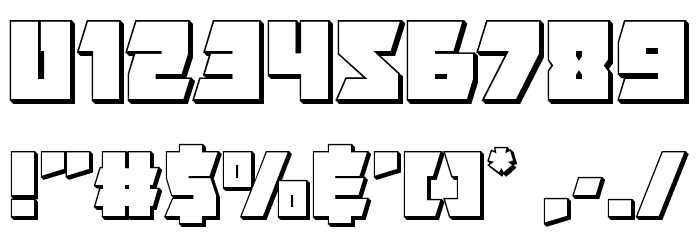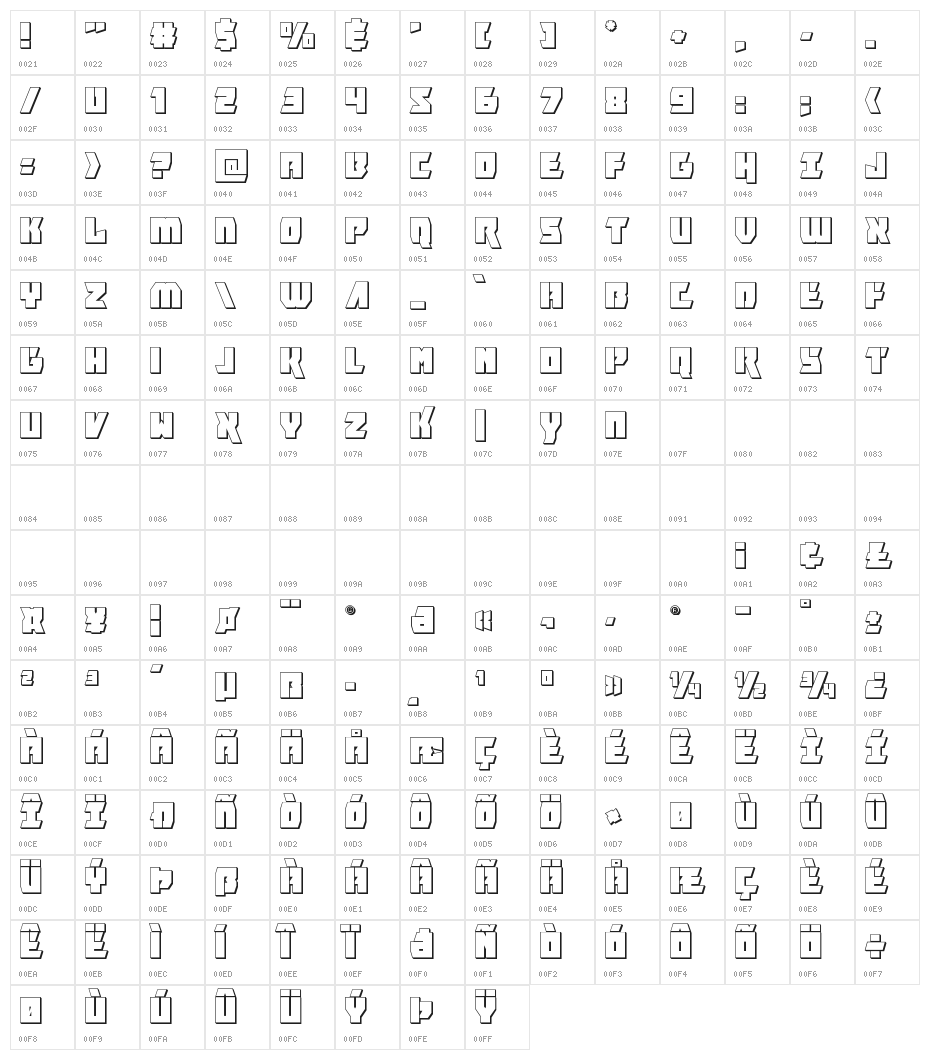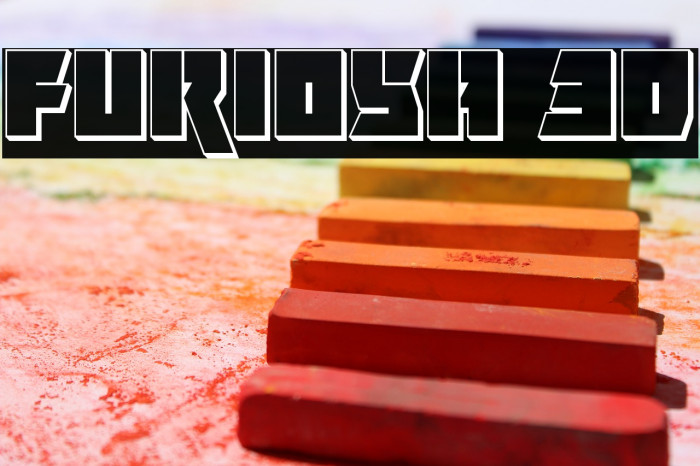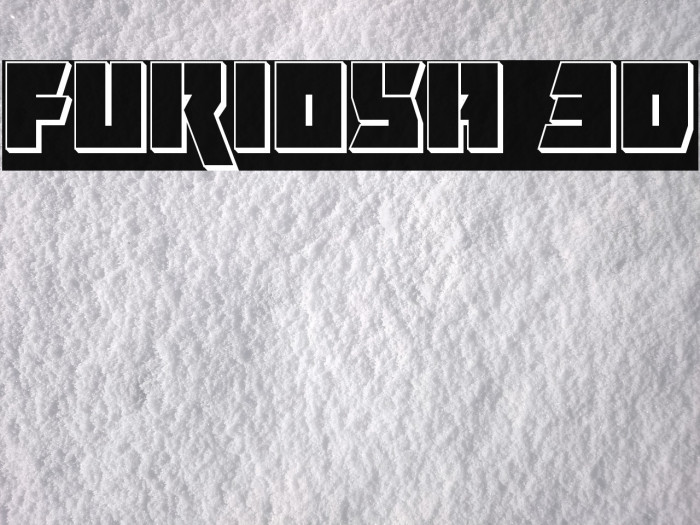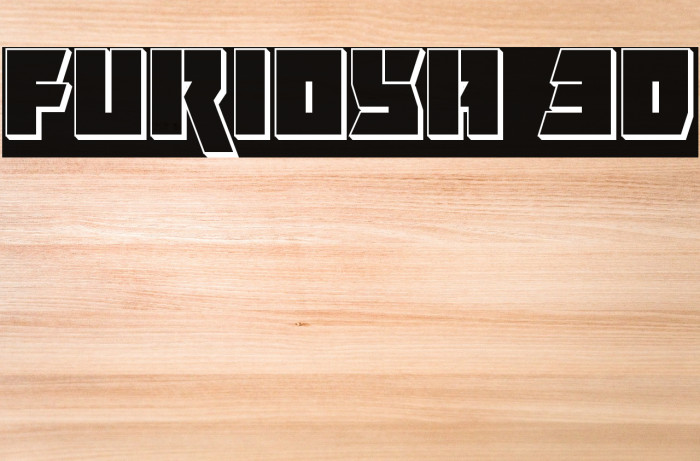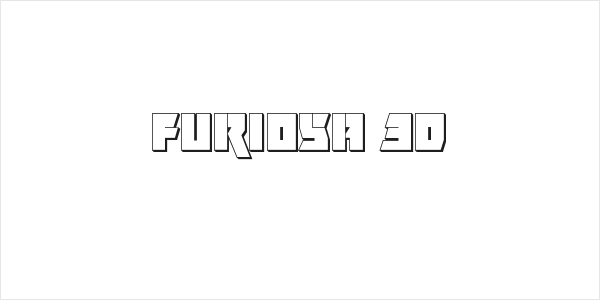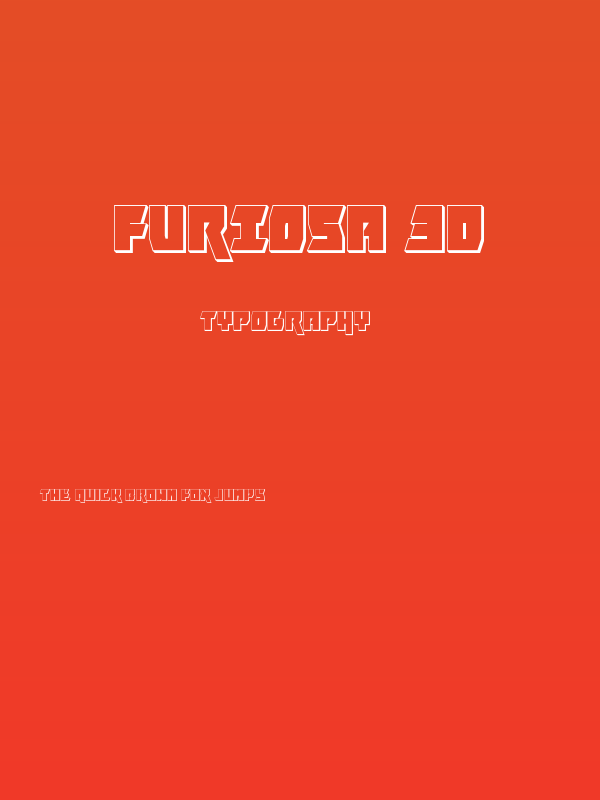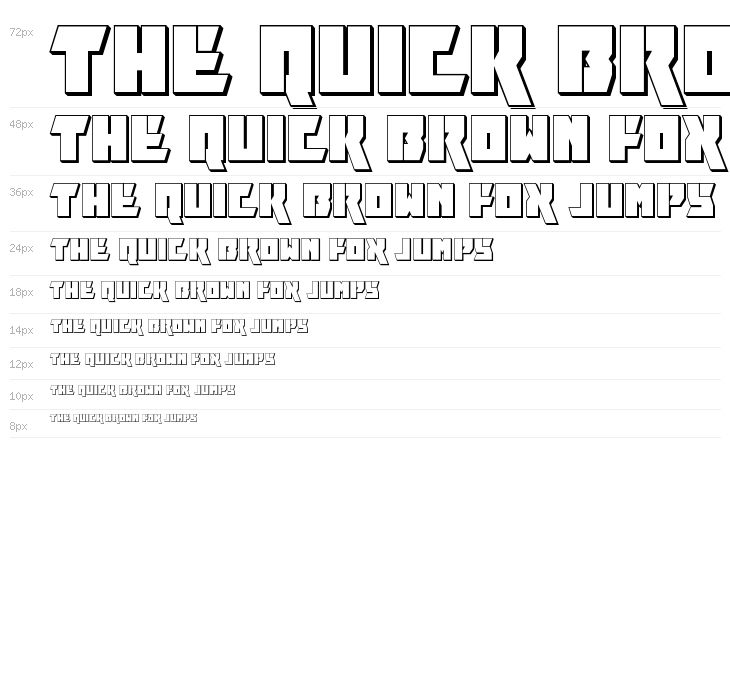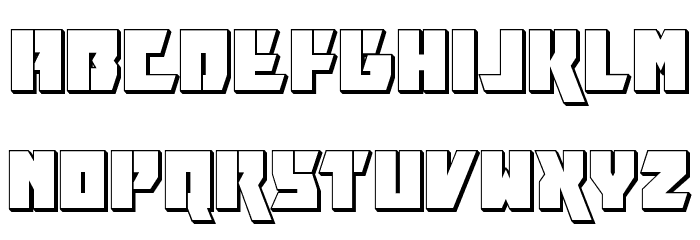
Furiosa 3D Font
Furiosa 3D Description
This font features a bold, three-dimensional design with a strong, geometric structure. Each character is outlined, creating a shadow effect that gives depth and a sense of solidity. The letters are blocky and angular, with sharp edges and a futuristic aesthetic. The uppercase and lowercase letters maintain a consistent style, emphasizing uniformity and strength. The numbers and special characters follow the same design principles, ensuring a cohesive look across all glyphs. This font's distinct appearance makes it ideal for projects that require a modern and impactful visual statement.
| Proposed Projects | Ideal for video game titles, sci-fi movie posters, tech branding, or any project needing a modern, bold statement. |